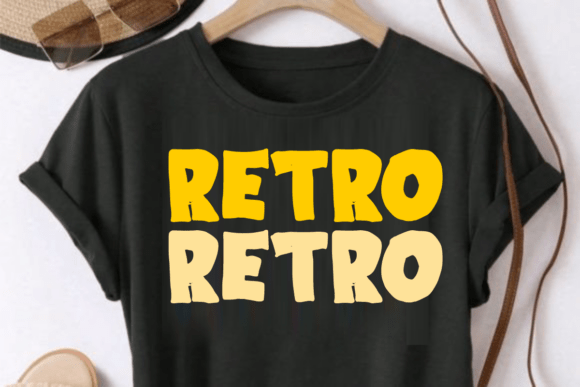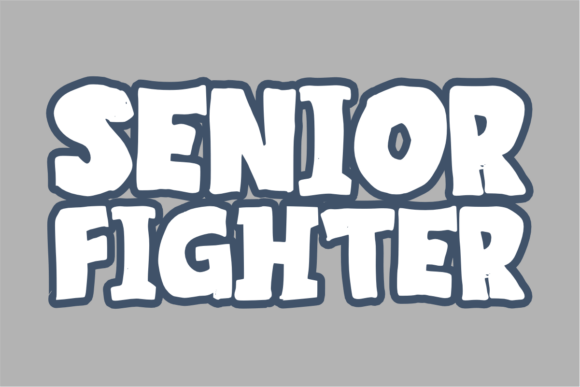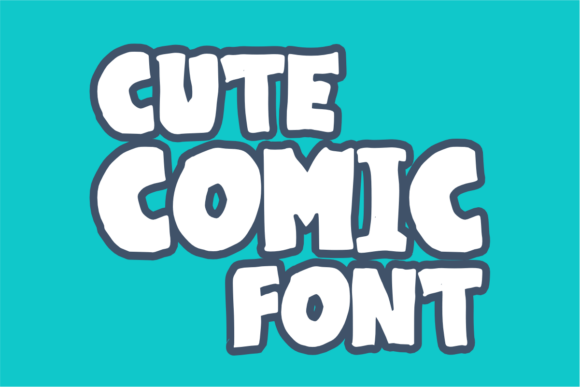
Introduction to Simple Graffiti Font
Do you remember the excitement of creating a masterpiece with crayons as a child? The thrill of bringing a blank page to life, watching your imagination unfold, and seeing the joy on the faces of those around you? For designers, that same excitement is what drives them to push creative boundaries. And that’s exactly what the Simple Graffiti Font offers – a fresh and modern way to bring your ideas to life.
Whether you’re working on a design project or simply looking for a fun and engaging way to add some personality to your work, the Simple Graffiti Font is an excellent addition to your design resource library. With its transparent background and high-quality design, this font is perfect for creating eye-catching graphics, posters, and more.
Key Features of Simple Graffiti Font
- High-quality design resource ideal for creative projects and artistic expressions
- Features a unique, hand-drawn style that adds a personal touch to any design project
- Designed to be highly legible, even at small font sizes, making it perfect for titles, headings, and body text
Honest Review: Simple Graffiti Font
I recently had the chance to work with the Simple Graffiti Font, a free download that promises to bring a high-quality touch to any creative project. As a designer, I’m always on the lookout for unique and versatile design resources, and I was excited to see if this font lived up to its hype.
- ✨ Unique and playful lettering: The Simple Graffiti Font has a fun, carefree vibe that’s perfect for adding a touch of whimsy to your design.
- ✨ High-quality design: The font is well-designed and crisp, making it perfect for printing or digital use.
- ✨ Transparent background: The font comes with a transparent background, making it easy to layer over other design elements.
- ⚠️ Limited character set: The font only includes a limited character set, which may make it difficult to use for extended text.
- ⚠️ Not ideal for body text: While the font is perfect for headlines or titles, it may not be the best choice for body text due to its playful nature.
Overall, I was impressed with the Simple Graffiti Font’s unique design and high-quality execution. While it may have some limitations, it’s a great resource to have in your design toolkit for adding a touch of creativity to your projects.
The Simple Graffiti Font is suitable for various creative projects, including:
- Event invitations
- Artistic expressions